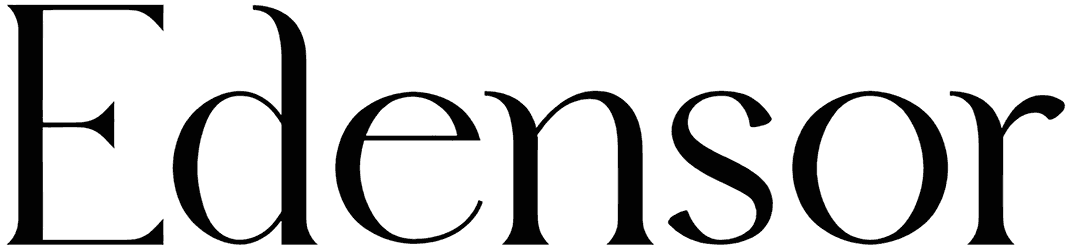
Edensor Font
Formality, majestic, and breathtaking are the suitable words we could find for describing a magical serif font such as Edensor that carries a feeling of confidence, respect, or trustworthiness. Due to its classy, unique style, grabbing the attention of the audience and satisfying customers would be a piece of cake.
So we strongly advise you to utilize this font in your magazines, presentations, invitations, diplomas, or social media posts to make the best possible outcome out of it.